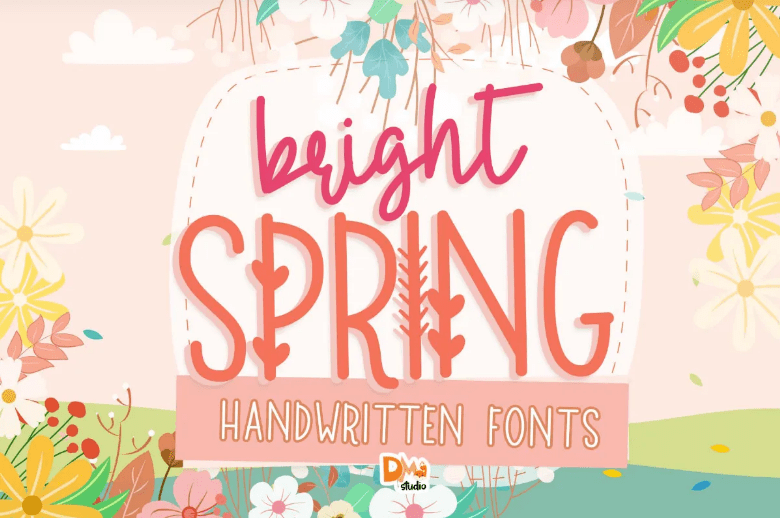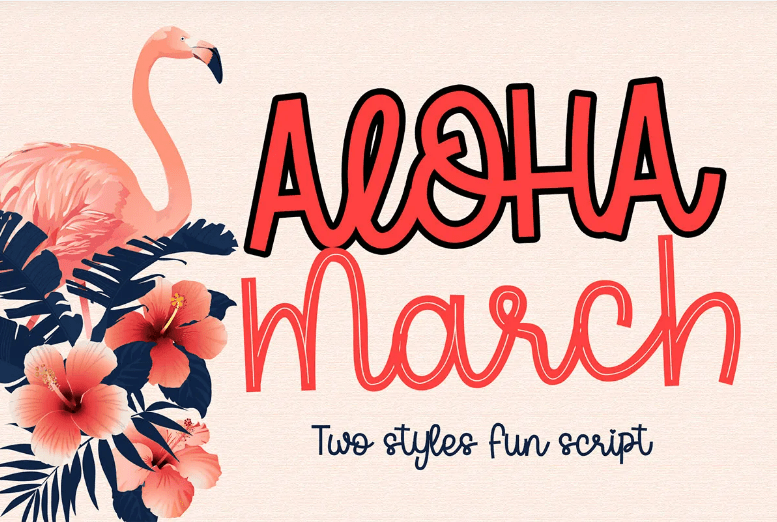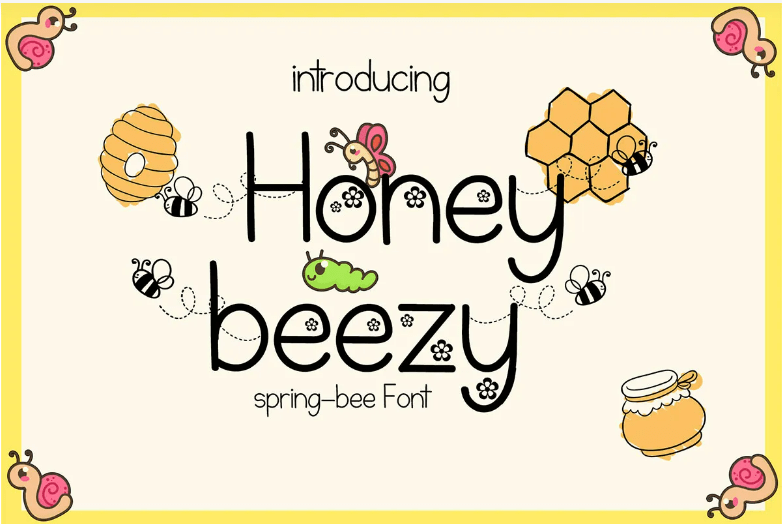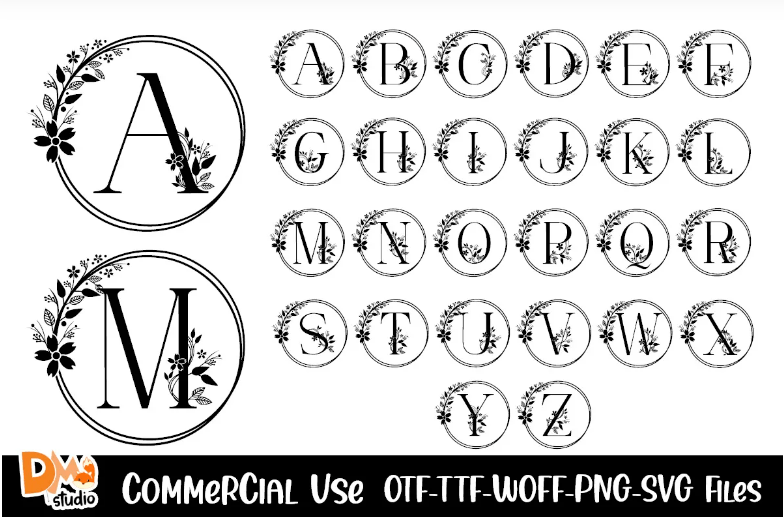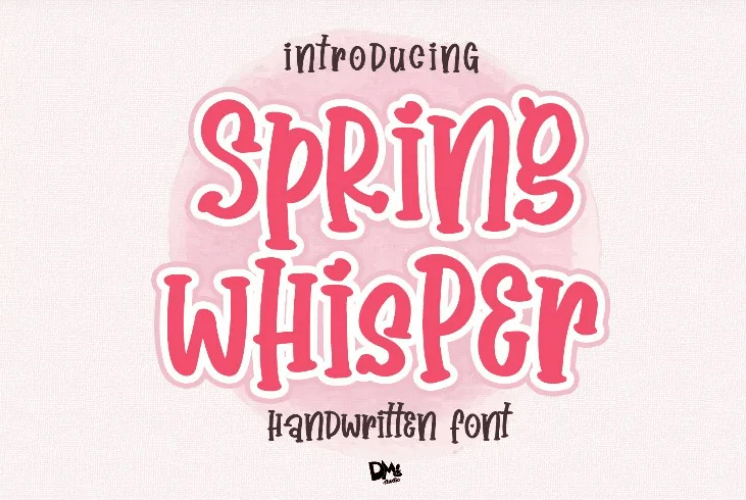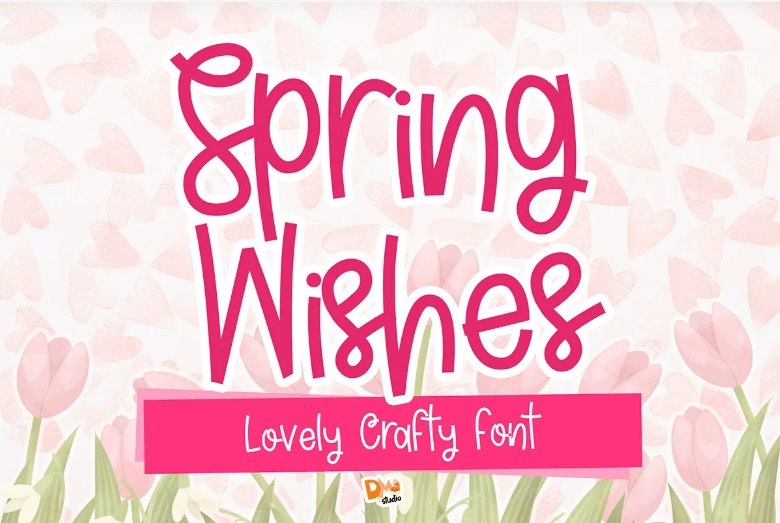
The Seasons Font to Enliven Your Greeting Cards
Use the seasons font to craft an appealing greeting card for a particular occasion and make the recipient would be beyond happy to receive your card. Find our thematic recommendation below!
List of The Seasons Font You’ll Love
Be it spring, summer, autumn, or winter, each season font has different vibes, so strengthen the atmosphere by choosing the right one!
Spring
Warm weather in spring makes people think about flowers, meadows, and sunny days. That’s why fonts associated with this season should look bright and flowery.
Bright Spring Font
Bright Spring Font | Image Source: DM Studio
The adorable Bright Spring font contained two types of fonts, decorative and handwritten. Its dynamic curves and styles make your greeting cards get attention.
Aloha March
Aloha March Font | Image Source: DM Studio
Look at this quirky script font! Remember to put your best quote with this typeface for those who want to wear matching custom shirts in spring.
Honey Beezy – Spring Bee Font
Honey Beezy Spring Bee Font | Image Source: DM Studio
Is your kid’s birthday around the corner? Use Honey Beezy typeface as the invitation card font for a lovely invitation!
Monogram Sakura Font
Monogram Sakura Font | Image Source: DM Studio
Looking for a free font for the seasons? Set your eyes on this Monogram Sakura font. The lovely leaf ornament in each letter reminds you of springtime, right?
Spring Garden – Beautiful Handwritten Font
Spring Garden Beautiful Handwritten Font | Image Source: DM Studio
Putting floral doodles on your greeting card can be tiring. Spring Garden font makes it easier for you!
Spring Whisper – Handwritten Crafty Font
Spring Whisper Handwritten Crafty Font | Image Source: DM Studio
The cute, bubbly characters of this Spring Whisper typeface make your project adorable. Don’t miss the chance to craft sweet cards with this font.
Spring Wishes Font
Spring Wishes as one of The Seasons Font | Image Source: DM Studio
The playful feeling can be well-conveyed through the Spring Wishes typeface, as some letters have a cursive style.
Summer
Tone up your summer-related design projects with the typeface listed below!
Amigos – Summer Font
Amigos Summer Font | Image Source: DM Studio
Choose a font with a unique swash in its letter, such as Amigos, to create a feeling of freedom! This typeface will be great on summer event posters.
Joyfull Summer – Handwritten Font
Joyfull Summer as One of the Seasons Font | Image Source: DM Studio
The messy look on this Joyfull Summer typeface reminds you to take it easy. Enjoy your summer holiday to the fullest while you can.
Lost Island – Summer Display Font
Lost Island Summer Display Font | Image Source: DM Studio
Put the chunky characters on your DIY projects with this Lost Island Summer typeface. Best font for t-shirts to go to the beach.
Summer Crab Font
Summer Crab Font | Image Source: DM Studio
The lively feeling of the Summer Crab typeface radiated from its distinctive visual on each letter. Bubbly and lovely.
Sunday Beach Handwritten Font
Sunday Beach Handwritten Font | Image Source: DM Studio
Create a compelling beach party invitation with this relaxing and adorable typeface. Make meaningful summertime memories with friends!
Sunny Beach Font
Sunny Beach Font | Image Source: DM Studio
Raise your hand if you agree that summer is for creativity! Make your summer memorable by crafting some DIY projects with Sunny Beach font.
Sunset Story – Handwritten Font
Sunset Story Handwritten Font | Image Source: DM Studio
Appealing brushes from each letter of Sunset Story typeface would be the best idea for getting custom-matched shirts! Do you agree?
Tropic Sunset Font
Tropic Sunset Font | Image Source: DM Studio
Use the fun display font for your next DIY project, like the Tropic Sunset typeface. Its chunky letters will create a ravingly eye-catching creative work.
Autumn
Falling leaves, golden sun, and chilly wind coming your way. The fonts suitable for this season should generate a memorable feeling.
Autumn Crush Font
Autumn Crush Font | Image Source: DM Studio
Let’s start with Autumn Crush, one of the seasons font that gives a cheerful feeling every time you look at them. Its trendy look is perfect for your artistic project.